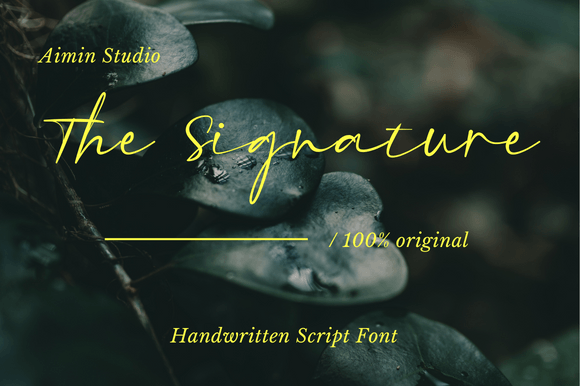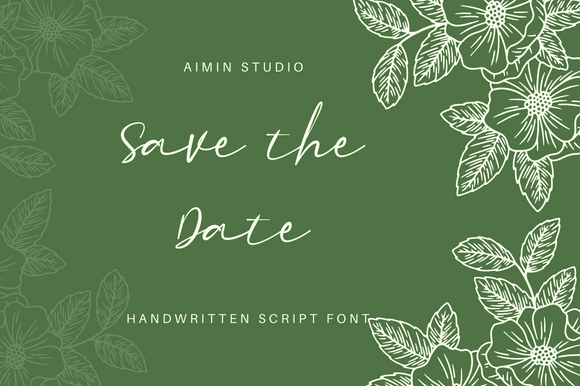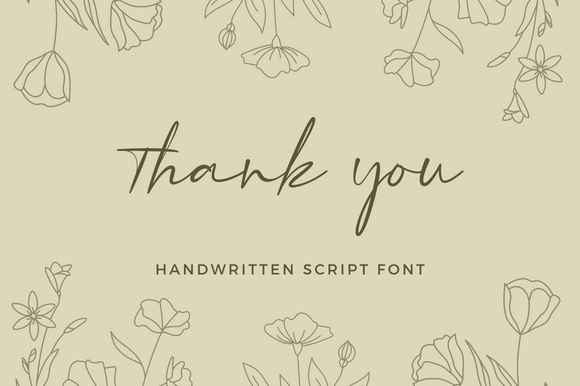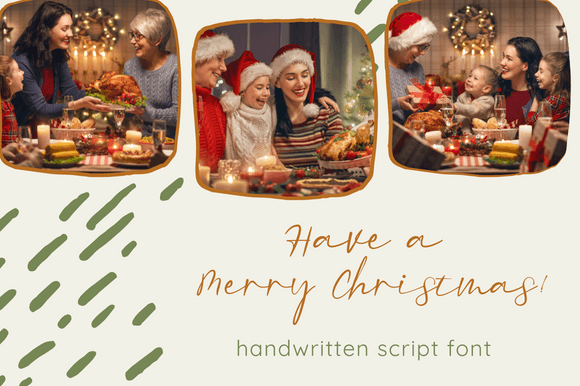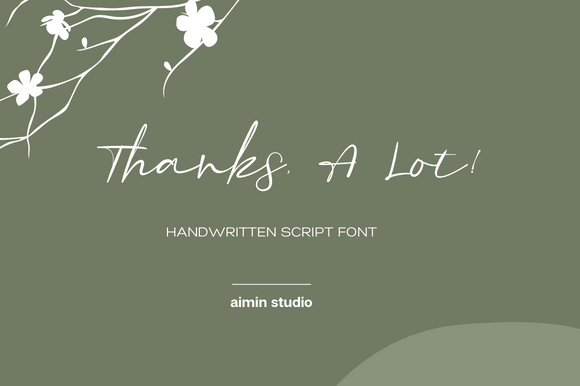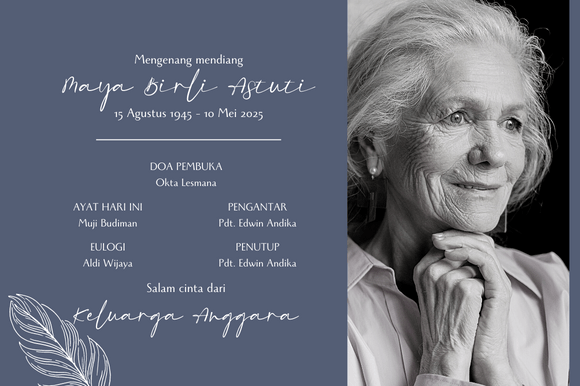
The Signature Font
About The Signature Font
The Signature is a gorgeous script font. It was made for packaging products, invitation cards, posters, product logos, greeting cards, business cards and all aspects that require high quality results.